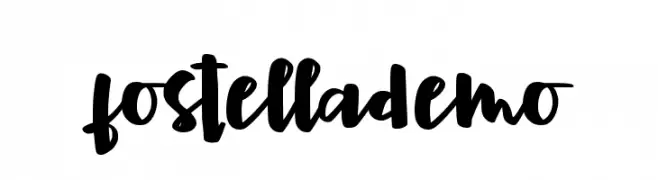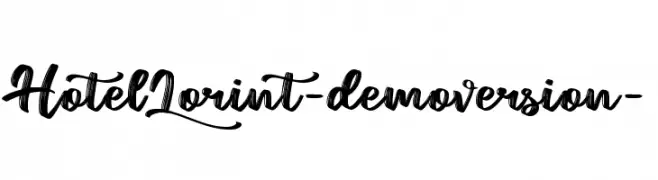
A playful, handwritten font with whimsical and dynamic strokes.
A playful, dynamic handwritten font with bold, expressive strokes.
A playful handwritten font with tall, narrow letters and a casual style.
A bold, modern font with sharp angles and smooth curves, ideal for display use.
A bold, playful handwritten font with a modern and dynamic style.
A bold, expressive script font with a hand-drawn, brush-like texture.
A decorative, cursive font with elegant loops and dynamic strokes.
A graceful script font with fluid, cursive strokes and elegant flourishes.
A bold and elegant script font with flowing, cursive letterforms.
A cursive, handwritten font with elegant, flowing strokes.